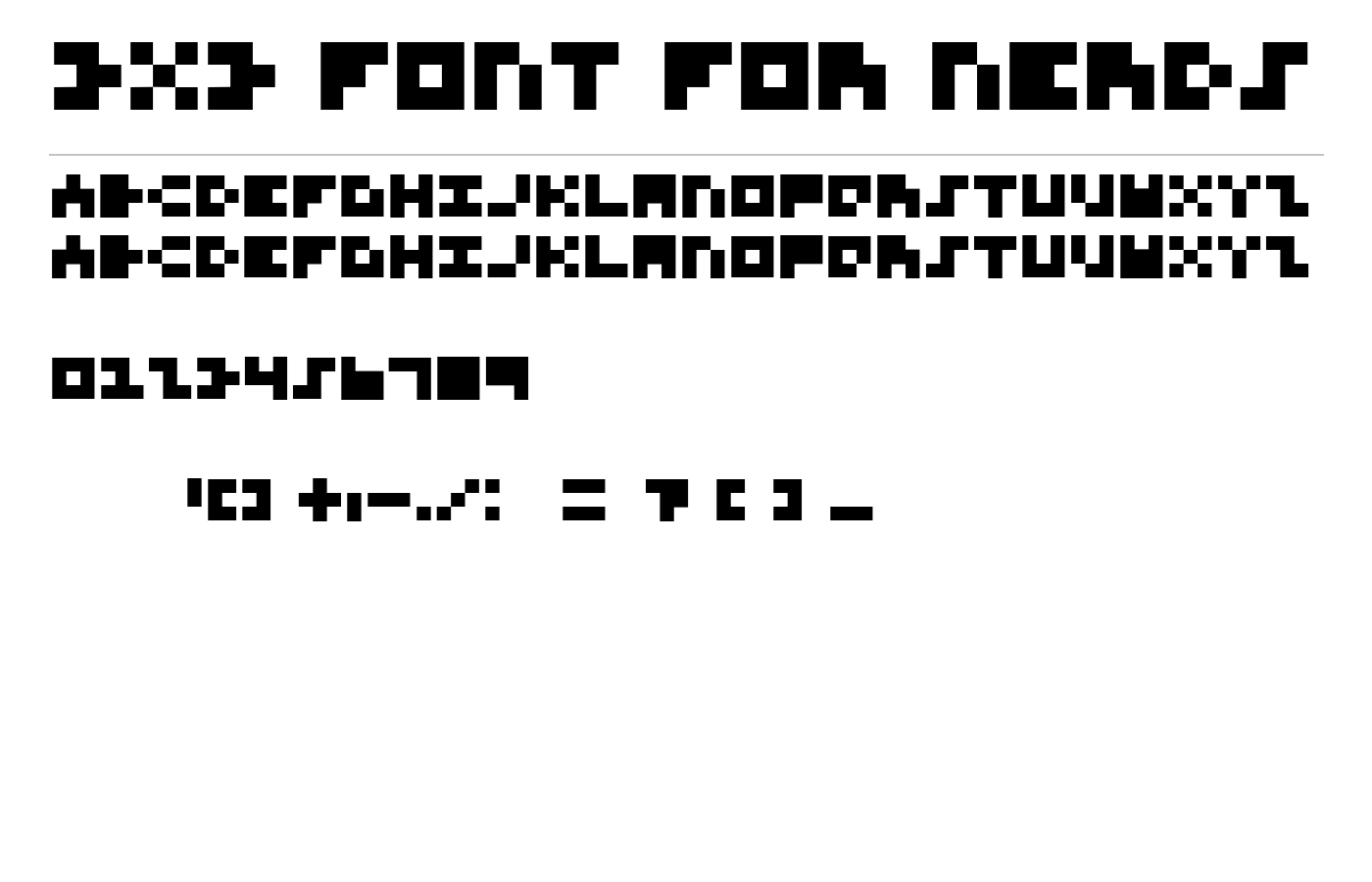
3x3 Font for Nerds is a bold, geometric sans serif typeface with a pixelated, blocky style that evokes a digital, retro video game feel. Its uniform weight, narrow width, and squared forms make it perfect for tech-savvy and playful designs that require a strong, futuristic personality. This font works best in logos, headlines, or digital art, bringing a nerdy, innovative vibe to projects needing a distinct and modern look.